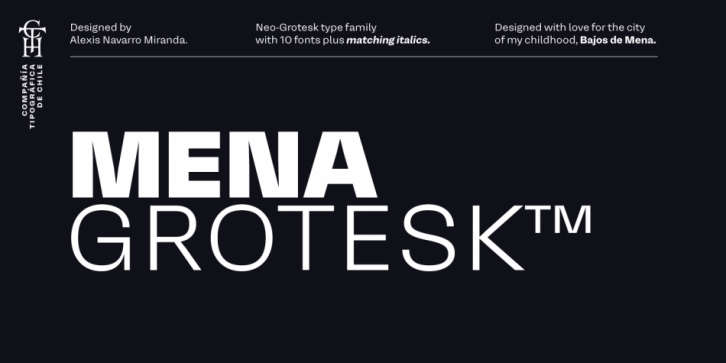
Publisher: Compañía Tipográfica De Chile
Designed by Ale Navarro, Mena Grotesk is a sans serif font family. This typeface has twenty styles and was published by Compañía Tipográfica De Chile.
In the neighbourhood of Bajos de Mena (Puente Alto, Chile) there are many stores and shops with signs and printed posters using typefaces such as Arial or Helvetica. These typefaces are used for all different purposes, from 8 pts to gigantics sizes, because local people would work with what they have within reach, also in terms of fonts. «What is Helvetica doing here?» that is the question that led me to design Mena Grotesk, a sans serif typeface for Bajos de Mena.
Mena Grotesk is a Neo-grotesk typography made in the Chilean way. Gifted with a more humanist proportion, with sharper inner curves and softer outer curves, Mena Grotesk counts with the character to stand out in big sizes and enough control to not distract the reader: it is a typeface to be seen and to be read. Mena Grotesk is a full time worker font, a “handyman”, as my people.
Mena Grotesk is composed by 20 styles, 886 glyphs and Small Caps. Besides, it has powerful OpenType features for each style, including stylistic sets, borders and patterns, extended language support, ligatures, contextual alternates, lining figures, oldstyle figures, arrows, circled and black circled numbers, fractions, superscripts, subscripts and many more.